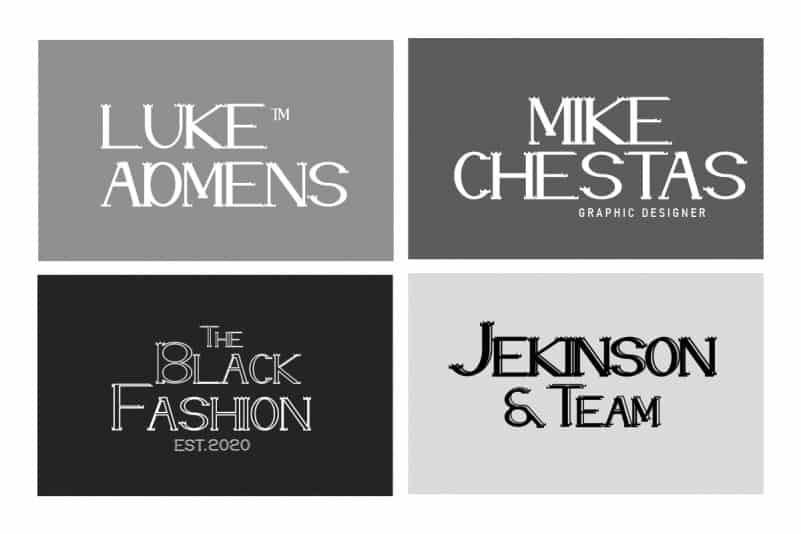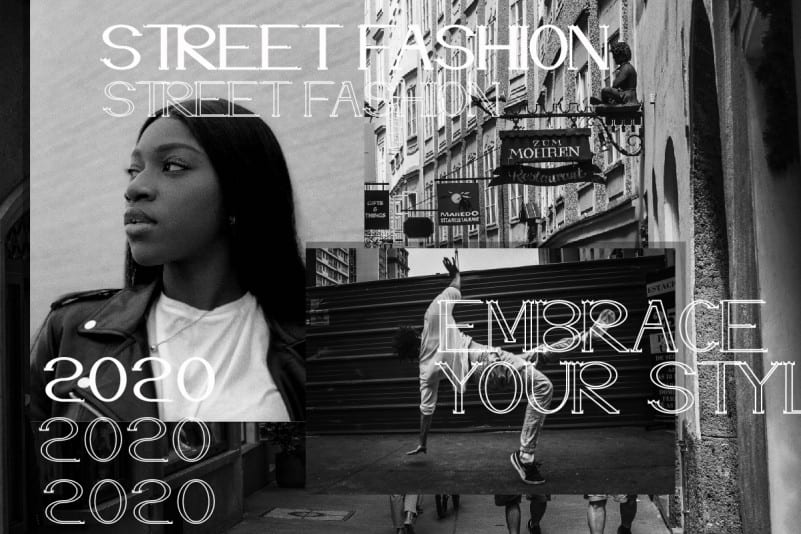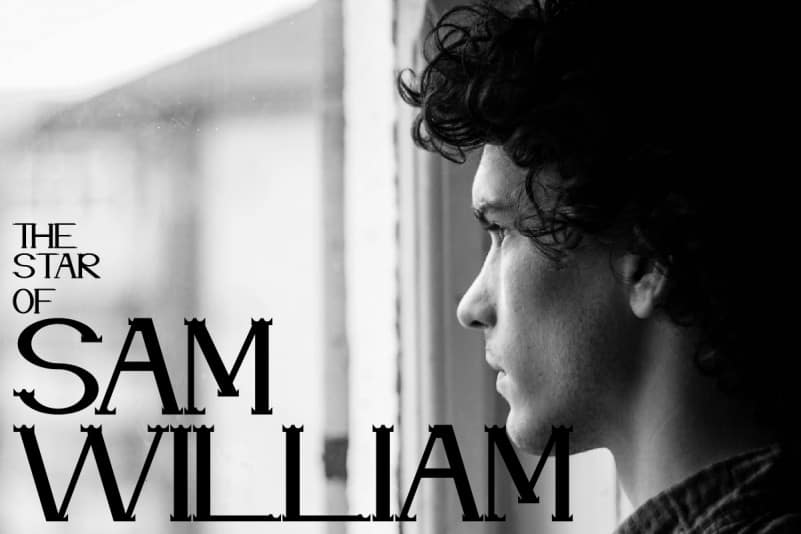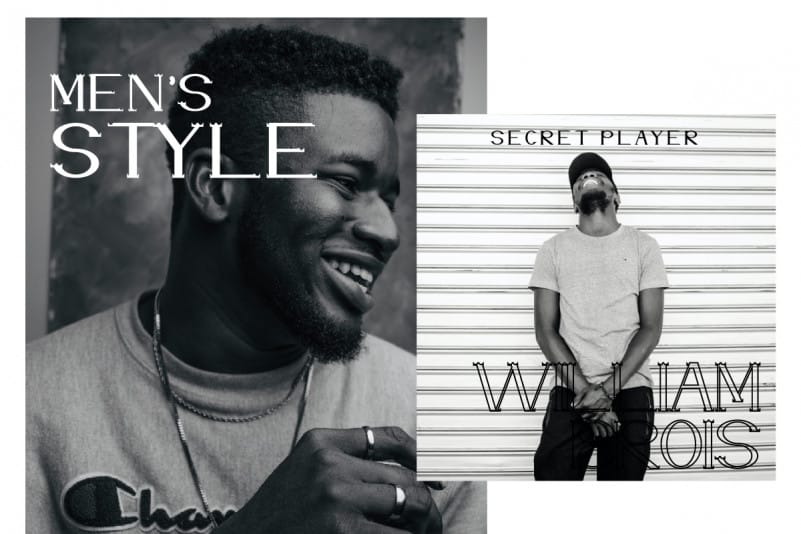
Pillar Yellow Display Font
Hello, Pillar Yellow Display Font is a serif display decorative Vintage style typeface. It will be Great for branding, logo, stationery, business card, signage, flyer, brochure etc. There are many industries that is suitable for this font : construction, real estate, services, law firm etc.